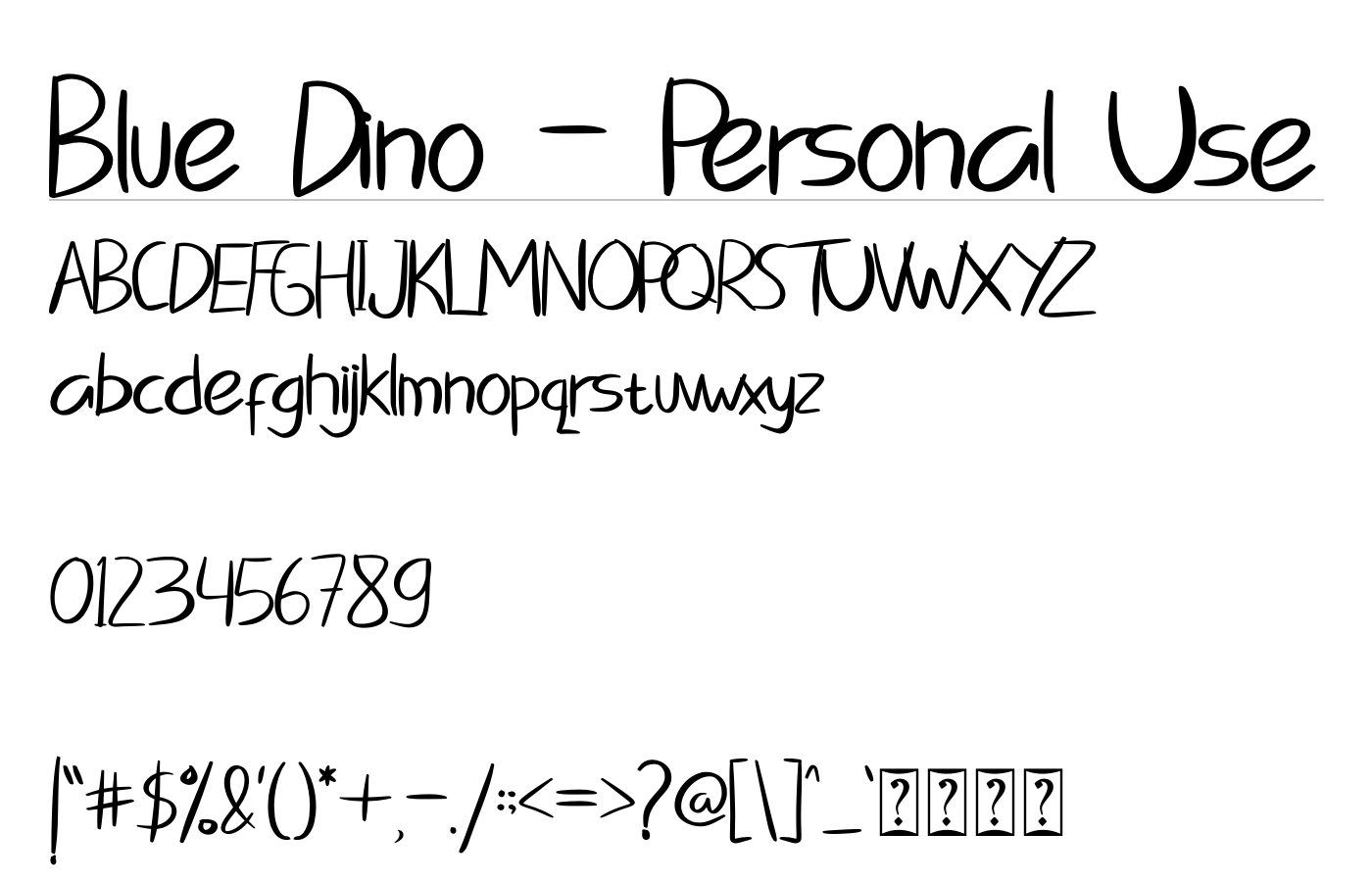
Blue Dino is a playful, hand-drawn sans serif font with a casual, uneven stroke style that mimics natural handwriting. Its tall, narrow letterforms and clean lines give it an approachable and friendly feel, making it perfect for informal designs, kids’ projects, or creative branding. This font works well in headlines, invitations, and personal use where a relaxed, whimsical touch is desired.
Blue Dino - Personal Use Font
About Blue Dino - Personal Use Font
| Font family | Blue Dino - Personal Use Font |